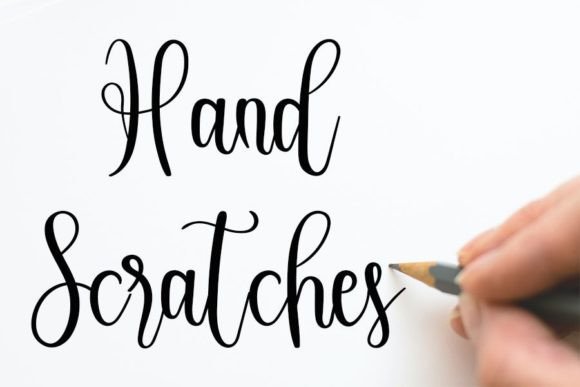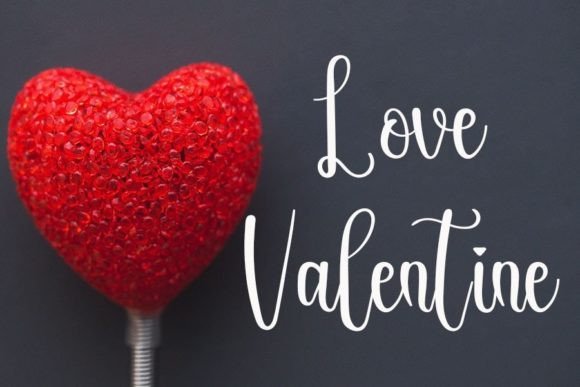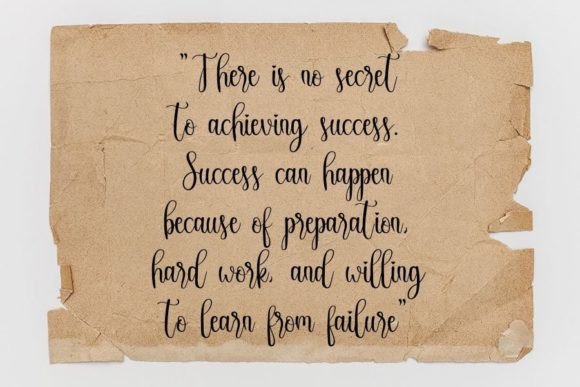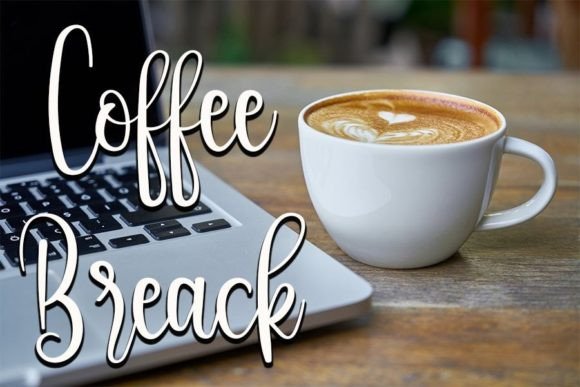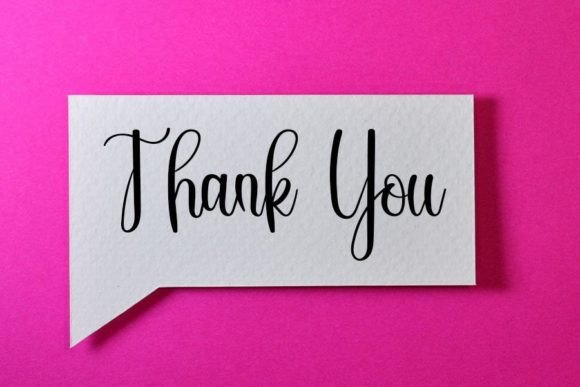
Simple Signature Font
About Simple Signature Font
“Simple Signature” is a slim and delicate handwritten font that imparts a sense of daintiness and joyfulness to your designs. With its slender and graceful appearance, this font is especially well-suited for crafting wedding invitations, cards, and other designs that require a romantic and personalized touch.
The slim and delicate strokes of “Simple Signature” contribute to its elegant and refined look. This font is thoughtfully designed to add a touch of sophistication and intimacy to your text, making it perfect for projects where a romantic and handwritten aesthetic is desired.
Versatility is a key feature of “Simple Signature,” making it suitable for various occasions. Whether you’re working on wedding invitations, greeting cards, or any project that calls for a romantic and personalized touch, this font enhances the overall charm of your designs.
In summary, “Simple Signature” is more than just a font; it’s a design element meticulously crafted to bring a sense of daintiness and joyfulness to your projects. Its slim and delicate handwritten style makes it an excellent choice for creating designs that exude romance and personalized elegance. Let “Simple Signature” be the font that adds a refined and romantic touch to your creative endeavors, making them truly special and memorable.